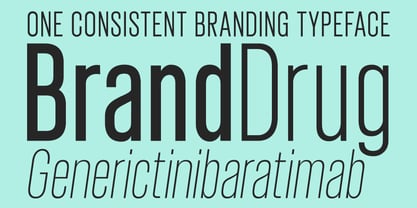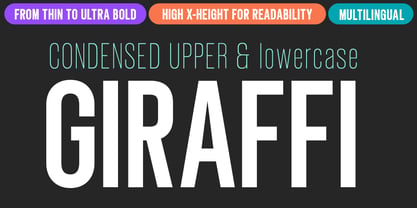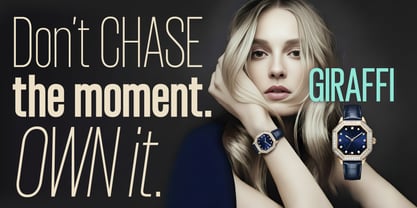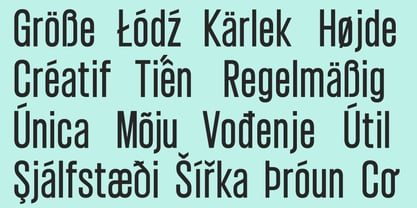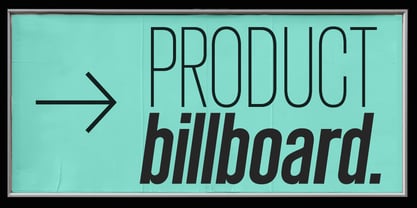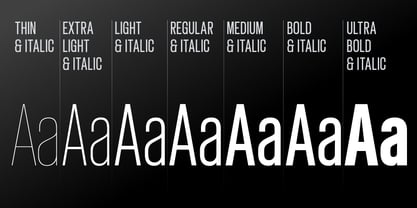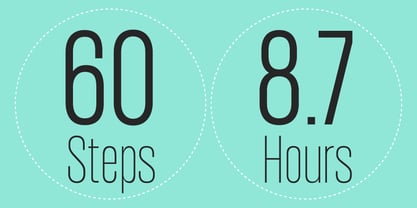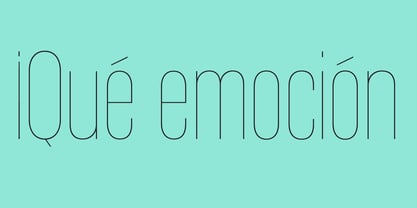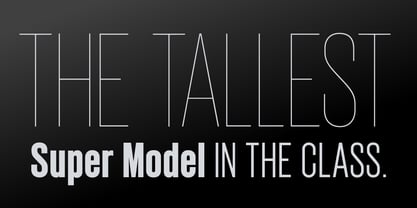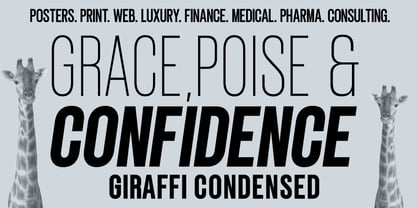
Giraffi Condensed
von Matt Chansky
Die Schriftfamilie Giraffi Condensed wurde von Matt Chansky entworfen und von Matt Chansky veröffentlicht. Giraffi Condensed enthält 14 Stile und Familienpaketoptionen. Mehr über diese Familie
Giraffi is a condensed sans serif designed for versatile use across editorial, branding, and digital typography. The family is defined by its vertical emphasis, controlled proportions, and a measured sense of elegance, providing a strong presence while maintaining clarity and restraint. Seven weights offer a wide expressive range, enabling consistent application across hierarchical and compositional needs. Giraffi supports a broad spectrum of creative use cases. In editorial layouts, its condensed structure allows for efficient use of space while preserving readability and typographic rhythm. In marketing and promotional contexts, the extended weight range enables both refined typographic systems and high-impact expression. The family is a higher performer in: posters, OOH, package design, signage, social media, and other marketing campaign environments where clarity, tone, and scale flexibility are essential. The typeface is optimized for screen-based environments. A high x-height improves legibility at small sizes and in dense compositions, supporting use in digital interfaces, motion graphics, and broadcast applications. Lighter weights retain precision and elegance. Heavier weights deliver confident impact, density, and emphasis without loss of form. Giraffi includes extensive European language coverage and Vietnamese support. This breadth allows the family to function effectively within international design systems and global communication programs. Giraffi was crafted to be a dependable condensed type family for sustained professional use. It balances efficiency, flexibility, and elegance, offering designers a consistent typographic solution across print, digital, and motion applications. Weights: thin, extra light, light, regular, medium, bold, ultrabold, including slanted versions of each weight. Over 500+ glyphs per weight, including estimated symbol for product design, and arrows for signage.
Designer: Matt Chansky
Foundry: Matt Chansky
Digital-first font foundry, specializing in universal, high x-height fonts with a Swiss flavor. Allowing designers to literally and figuratively level up their creative with finely crafted and versatile font families. Typography is a visual art and when used in branding – it has the ability to speak to and shape an audience. That is the foundry's mission, to empower visual communicators with elite memorable fonts to help distinguish brands. When typography is the language used to craft a brand tone, speak to me in fonts. My love of typography inspired me to begin making fonts, but it’s a passion for visual design that sustains me. As a brand lead, I've received nearly 40 individual awards and accolades since 2009, appearing in several design books and magazines. I've worked with brand name clients across a wide variety of business segments. With two decades of experience on the global advertising scene, I know what is needed from a font or a logotype. Qualities like memorability, readability on small screens, clean lines, and ample glyph options are hallmarks of my font families. Long live design, long live typography.